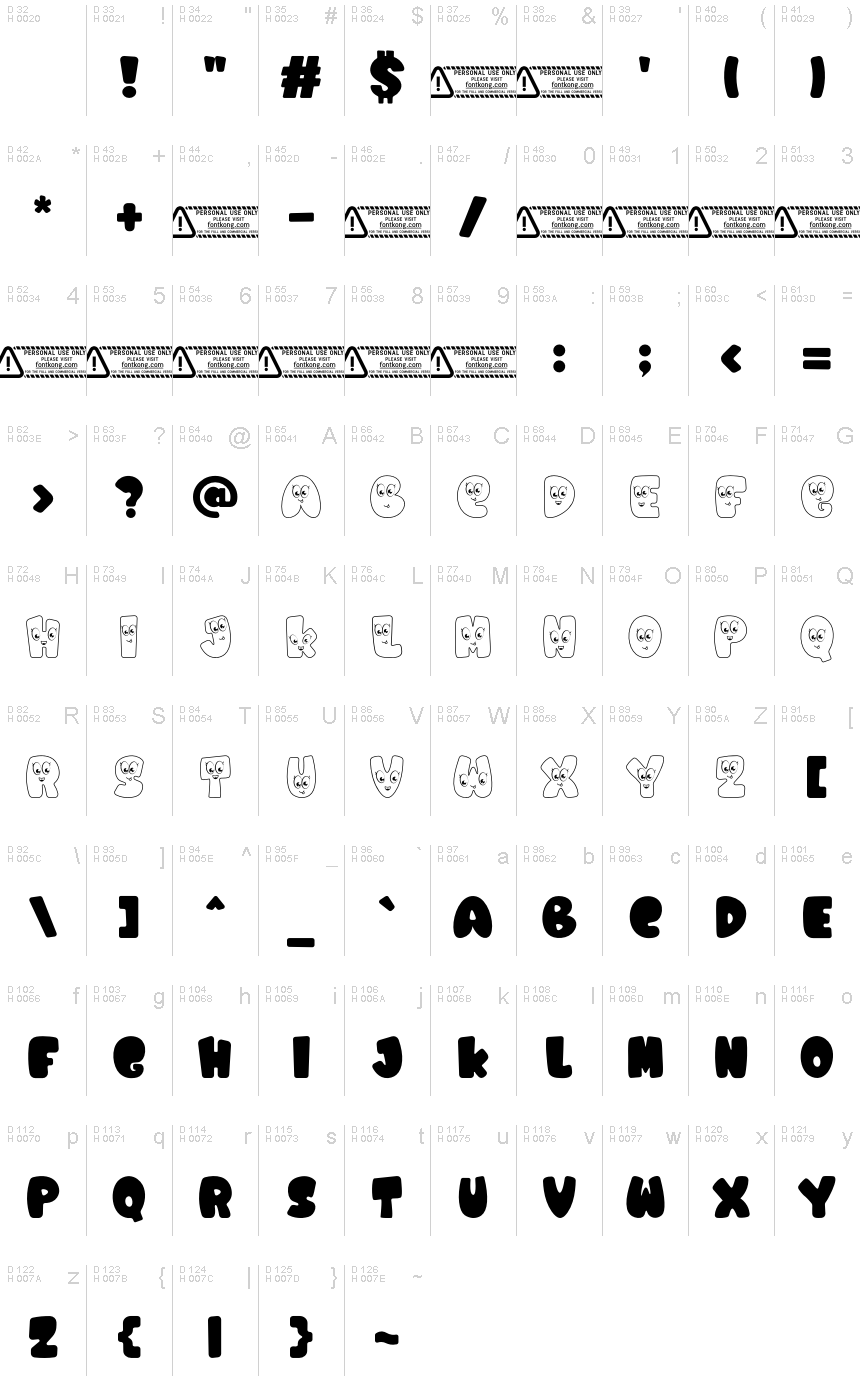
Larva Pink font, crafted by Kong Font, embodies a vibrant and playful cartoon style. Its bold weight and whimsical design make it perfect for capturing attention and adding personality to projects. The exaggerated shapes and delightful expressions within the letters give this display font a distinctive charm.
Ideal for children's books, posters, or any creative endeavor that demands an eye-catching aesthetic, Larva Pink enhances any design with its free-spirited vibe. Bold yet approachable, it's a great choice for anyone looking to inject humor and fun into their work. For designers seeking a unique display font that stands out in both digital and print media, Larva Pink offers an exciting option available for free download.
Discover the captivating appeal of Larva Pink today—your go-to cartoon font for impactful creations!